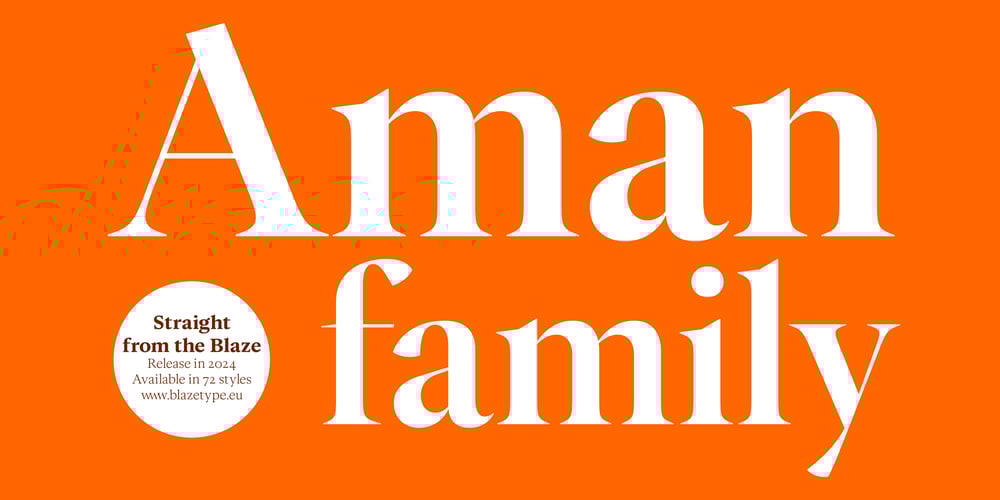
Aman
Aman font
Aman Font Family was designed by Matthieu Salvaggio, Ferdinand Del Fabbro and published by Blaze Type. Aman contains 72 styles and family package options. Aman is a versatile serif typeface family, crafted to perform seamlessly across a wide range of sizes—from striking display headlines to fine, legible captions. Inspired by the lettering from the book Amen, this typeface brings together the timeless elegance of old-style designs like Plantin with the refined sophistication of transitional styles such as Times New Roman. Its most distinctive features are the baroque flourishes seen in the beaks and head serifs, while its gracefully arcing terminals lend a subtle, refined touch to the letterforms.Carefully tuned for different optical sizes, Amen’s counter shapes, proportions, and contrast ensure optimal performance in every instance, whether used for bold, attention-grabbing titles or comfortably readable body text. This balance of style and functionality makes Amen an exceptional choice for editorial design, offering a wide array of styles and weights to cater to the needs of any project while maintaining visual coherence and harmony.